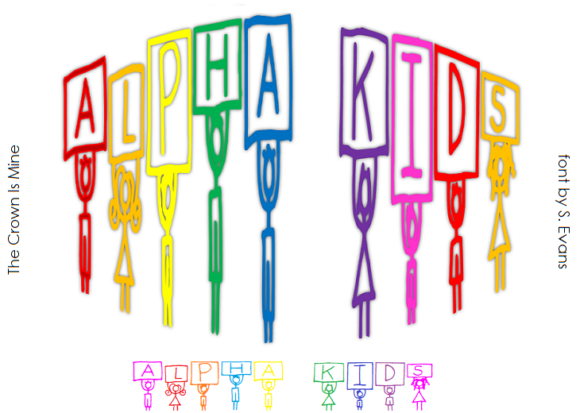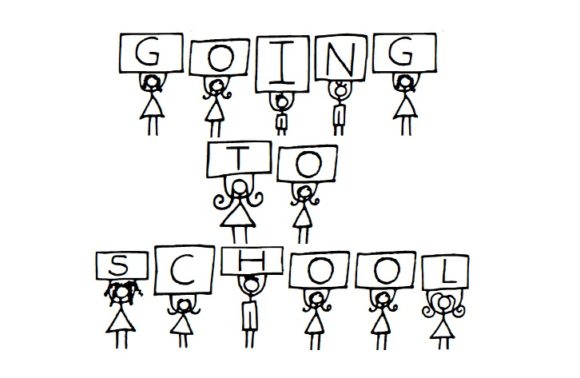
Alpha Kids Font
About Alpha Kids Font
Alpha Kids is a fun and cute handwritten font with a playful vibe. It will add a a unique, whimsical spark to any design project!